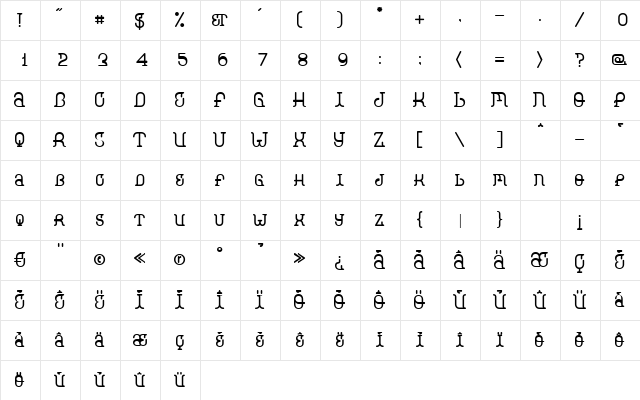
CHarles Regular
Design Context for CHarles Typeface
CHarles is a composed and adaptable typeface that performs quietly and consistently across a wide range of design contexts.
Pro Tip: Use CHarles in both headline and body roles to test its range before committing to a single application.